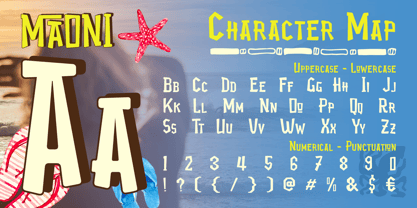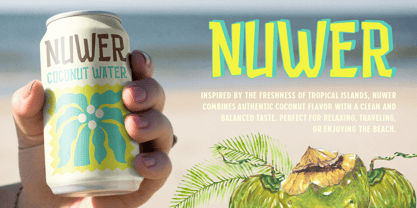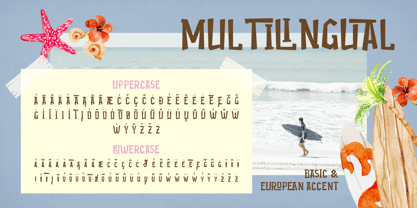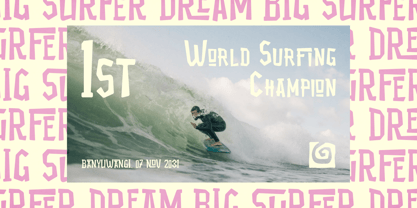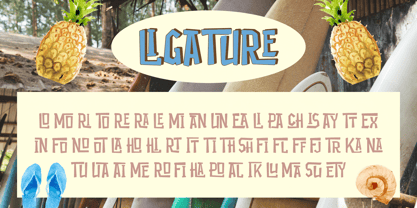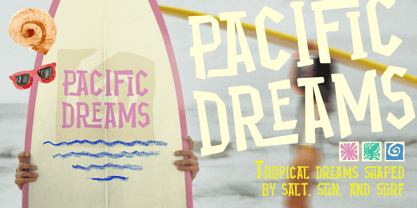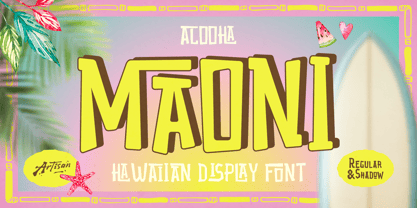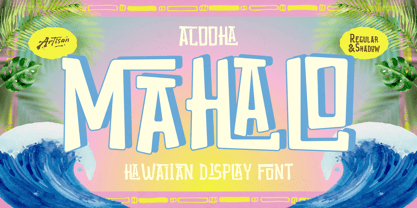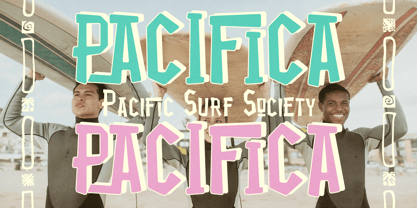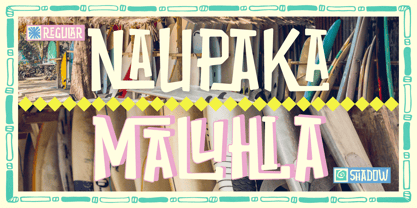
Maoni
La familia tipográfica Maoni fue diseñada por Meidy Meichico y publicada por Artisan Themes. Maoni contiene 2 estilos y opciones de paquete familiar. Más información sobre esta familia
Bring instant summer energy and salty beach vibes to your layout with Maoni, a playful Hawaiian display font handcrafted by Artisan Font.
Inspired by tropical surf culture, sunny days, and island adventures, Maoni packs a bold, fun, and laid-back personality that makes your designs feel like an endless summer vacation. It comes in two stackable styles—Regular and Shadow—giving you that effortlessly cool dimensional look in just a few clicks.
Whether you're crafting refreshing drink packaging, summer event posters, surf shop logos, or beachy merch, Maoni is built to make your headers pop without taking itself too seriously.
Great For:
• Summer party posters & event flyers
• Tropical drink cans, juice packaging & coconut water labels
• Surf club branding, beachwear & streetwear merch
• Restaurant menus, cafe signage & food truck logos
• Travel blogs, YouTube thumbnails & sunny social media graphics